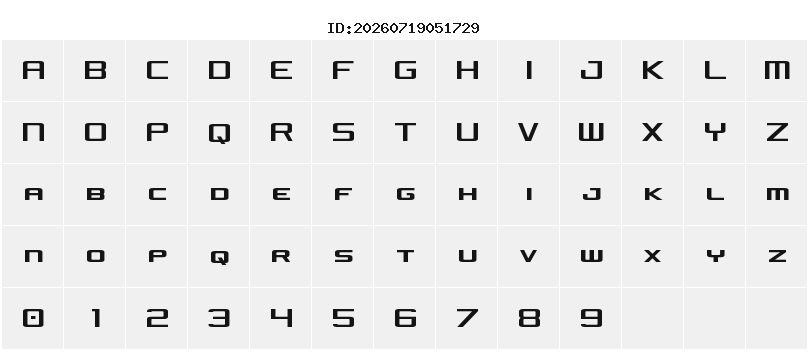
• Font Name: Concielian Jet Condensed
• Font Style: Condensed
• Full Font Name: Concielian Jet Condensed
About Concielian Jet Condensed.ttf
Concielian Jet Condensed.ttf is a modern, elegant sans-serif font designed for ultimate readability and visual harmony. Perfect for branding, headlines, web design, and print materials.